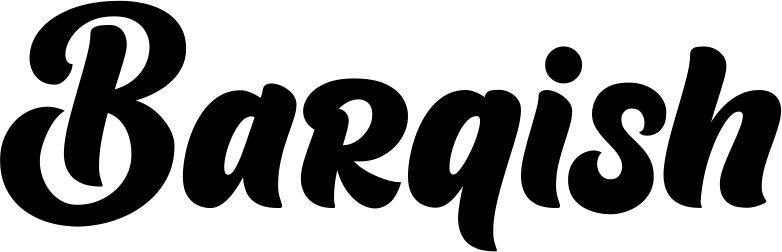
Barqish Font
Sometimes you need a special font that conveys a sense of personalization to the audience. Barqish is a script font and is designed in two simple and italic styles and has a good variety in this regard. Script fonts like Barqish have lots of usage. One of the many usages of this font is designing posters and web pages.